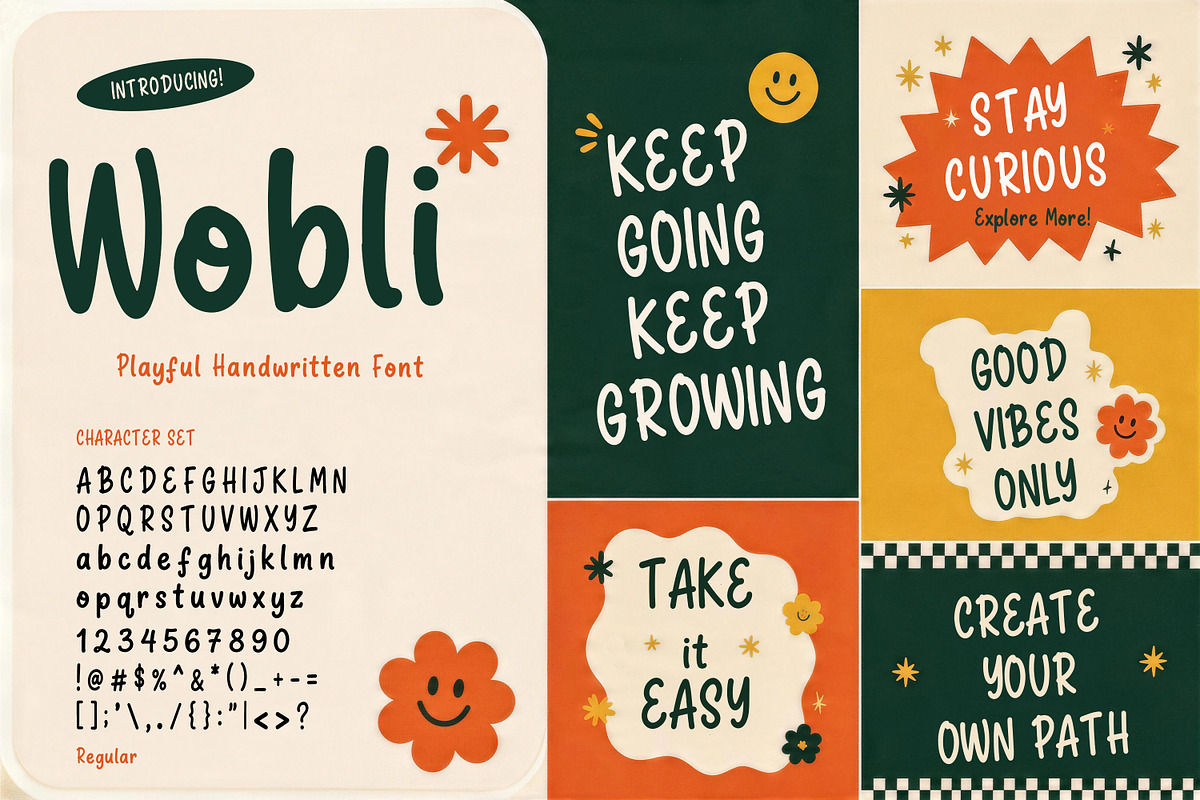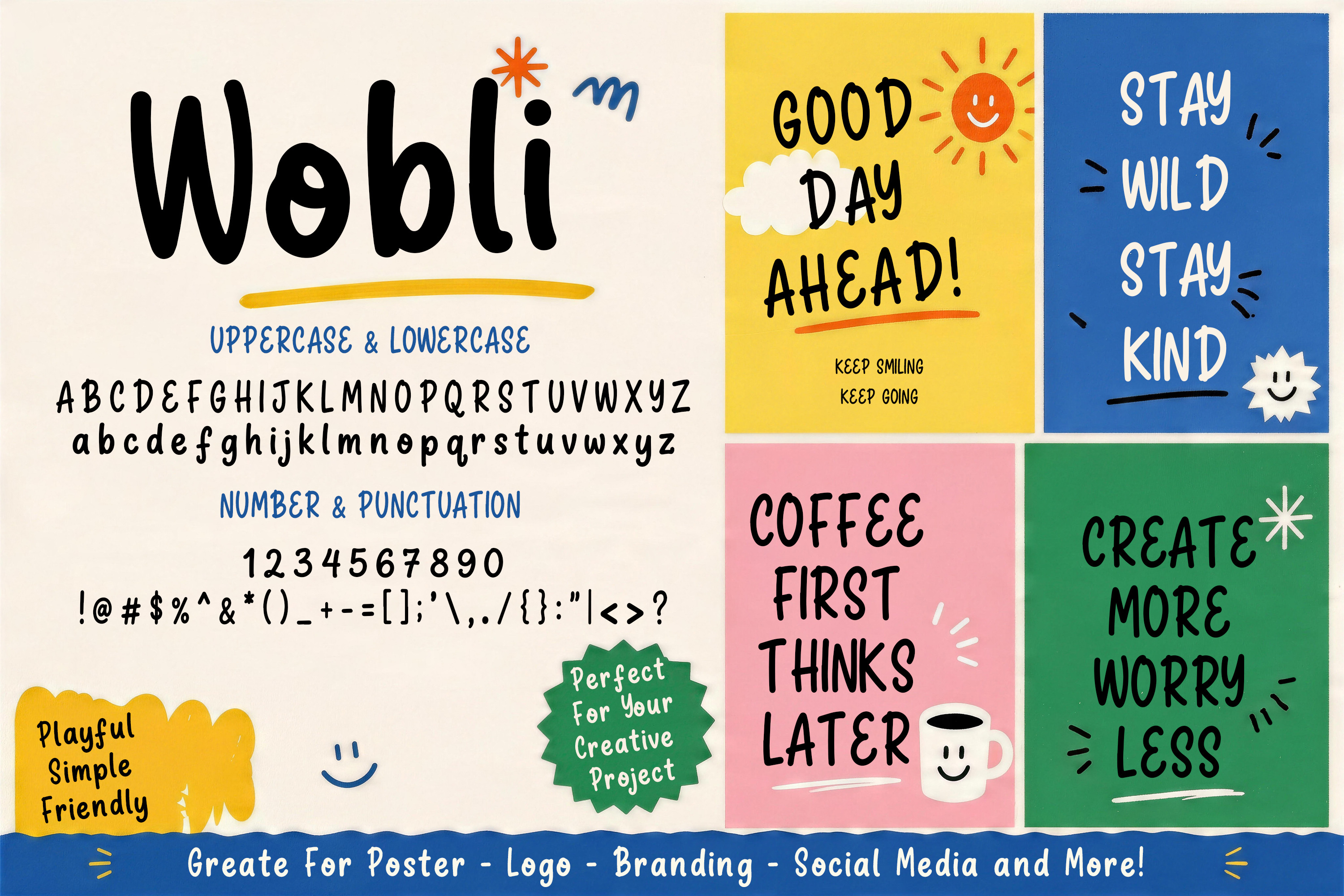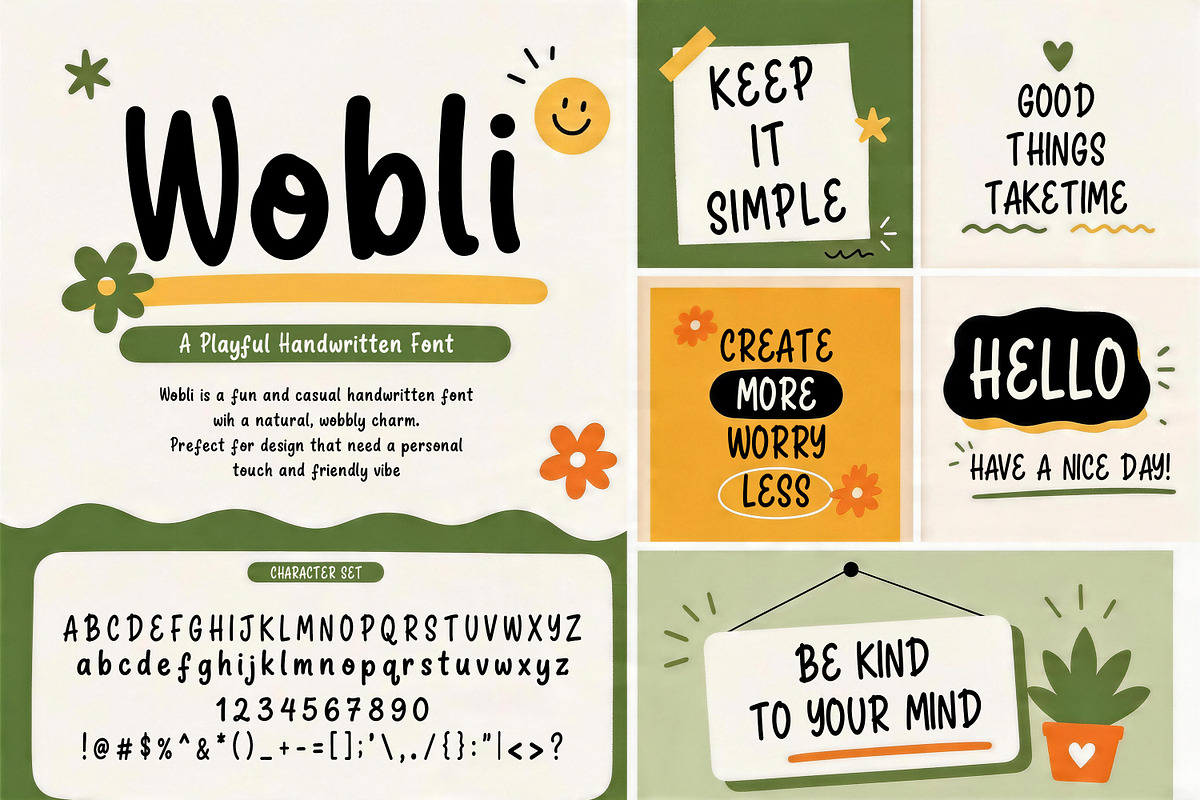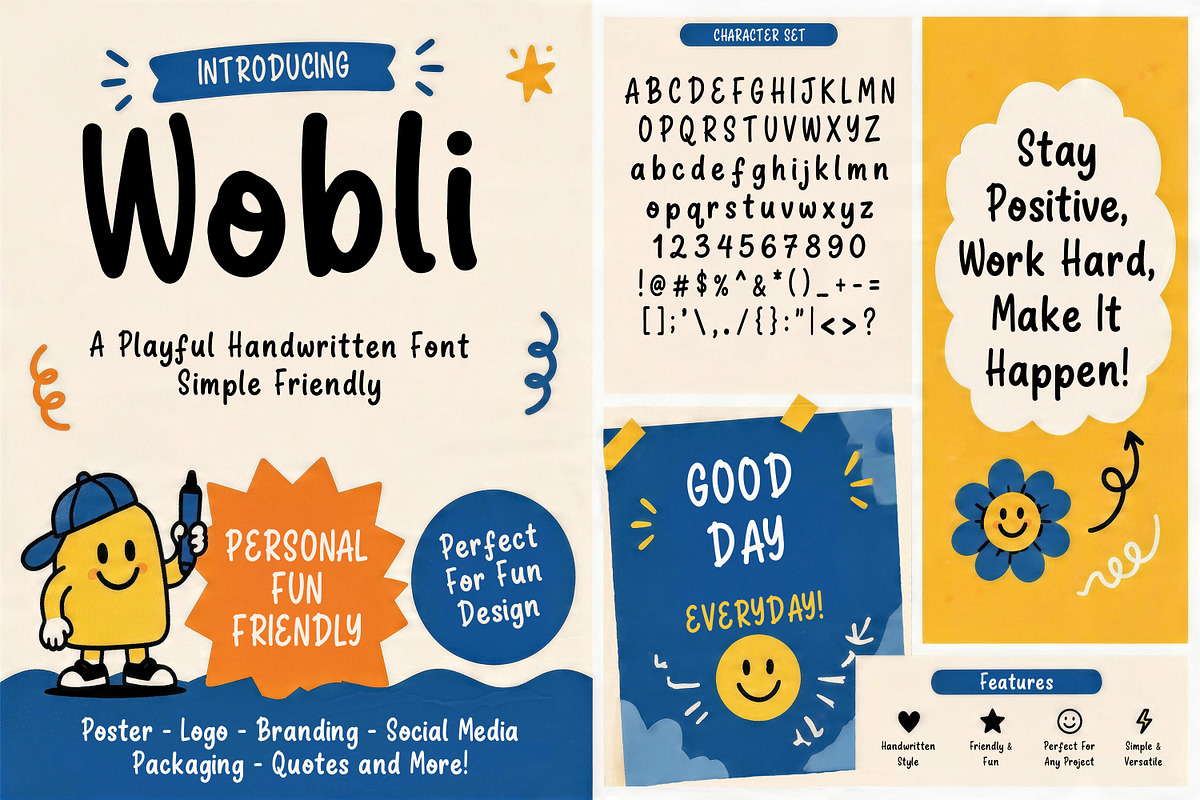
Wobli - Playful Handwritten Font
Webli is a playful handwritten font with a friendly, casual personality and naturally imperfect letterforms. Its bold, rounded strokes and lively hand-drawn character make it perfect for cheerful typography, creative branding, posters, social media content, and uplifting quote designs. With uppercase, lowercase, numbers, and punctuation, Webli brings a fun and approachable handmade touch to a wide range of creative projects.
Posters and motivational quotes
Social media graphics and content
Branding and logo designs
Kids and playful creative projects
Packaging, stickers, and merchandise
Webli is an expressive handwritten font that adds warmth, personality, and playful energy to every design.